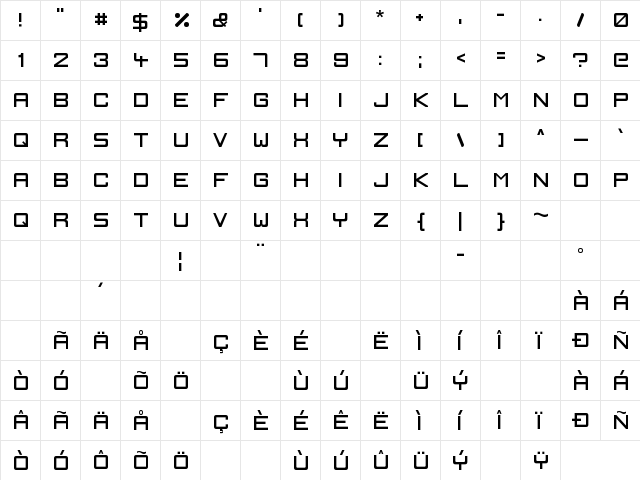
Ignis et Glacies Regular
Design Context for Ignis et Glacies Typeface
Ignis et Glacies offers clean, dependable letterforms without strong stylistic allegiance, making it a practical choice for designers who need flexibility.